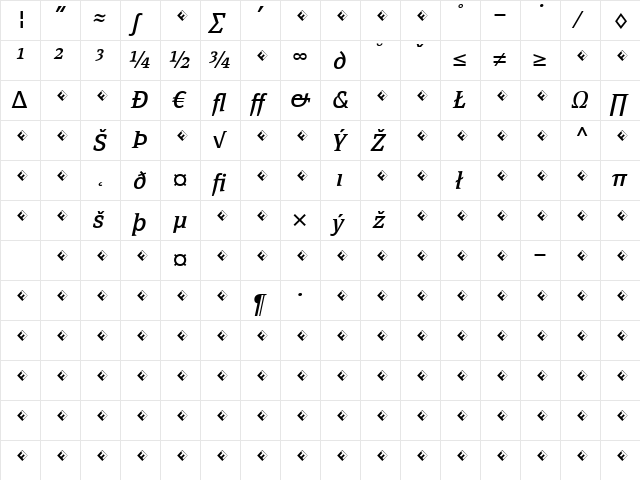
PageSerif-RegularItalicExp Regular
| Foundry | Albert Boton, published by FontShop International for the FontFont Library |
| Designer | Albert Boton |
Design Context for PageSerif-RegularItalicExp Typeface
PageSerif-RegularItalicExp brings classic typographic sensibility to the table — its serifs and measured letterforms reflect centuries of print heritage. Its italic angle brings a sense of urgency and motion to the letterforms.